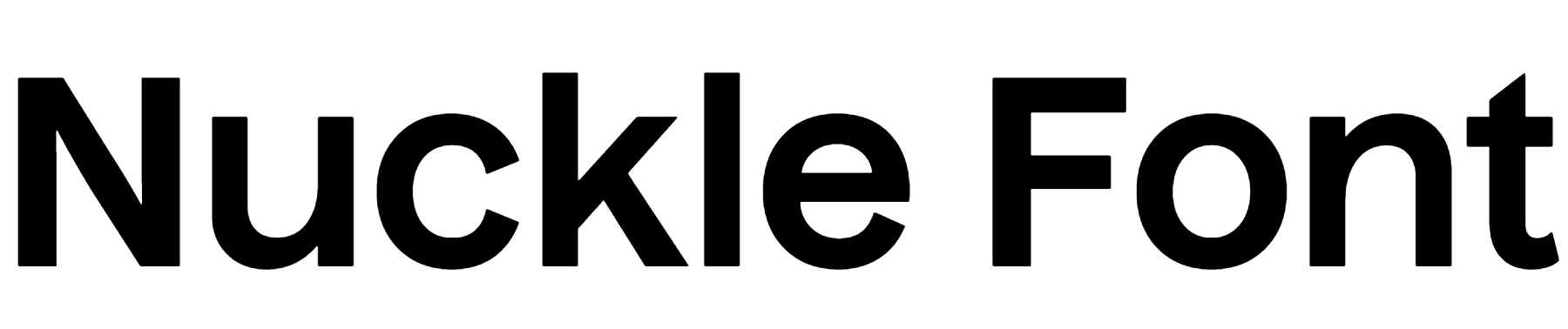
Nuckle
Nuckle is a sans serif font created by Filip Matejicek (2017). Its clean letters skip the little "feet" (serifs) of traditional type, so it looks modern and reads well on screens. You get eight styles in one free ZIP, and the preview above lets you test each one before you download.
Nuckle Font Details
What You Can Type With Nuckle
You get every letter from A to Z in both cases and all the numbers from 0 to 9, which means Nuckle can handle full sentences, dates and prices. Everyday marks like &, !, ? and @ are there too. Thanks to its accented letters, it also works for Spanish, French, German, Portuguese and Italian, not just English. Of its 597 glyphs, about 187 are not on your keyboard at all. That is where the alternates explained below live.
Where Nuckle Works Best
Nuckle is a natural fit for websites, app screens and clean logos. Its lowercase letters are tall compared to the capitals, which keeps it readable at smaller sizes. It works for headings and body text alike. If the download has several weights, use a heavier one for titles and a lighter one for paragraphs. Because the family has more than one style, you can mix them in a single design for headings, subheadings and highlights.
Does Nuckle support accented letters?
Yes. Nuckle includes the accented letters needed for Spanish, French, German, Portuguese and Italian, so it works for more than just English.